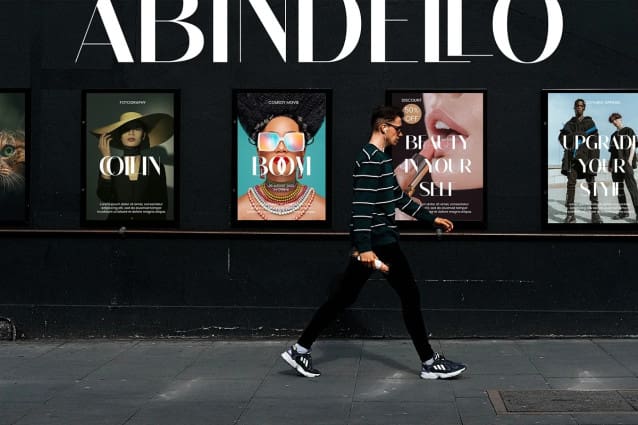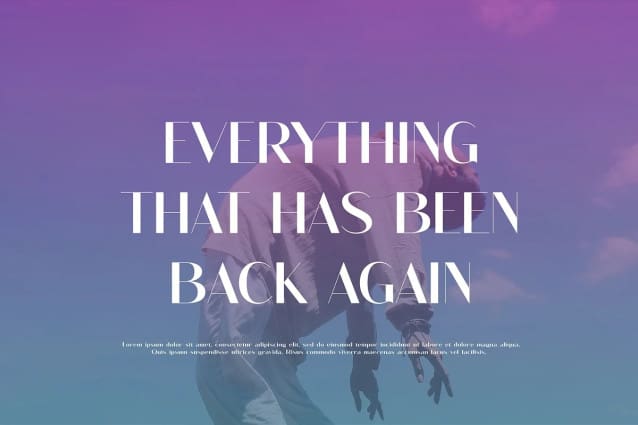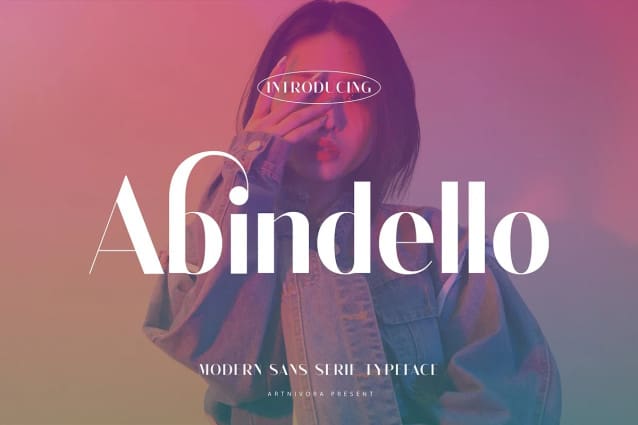
Abindello Font
Abindello Font, a simple and sans serif font. So perfect for you who needs a typeface for logo designs, magazine, social media, brochure, and many more.